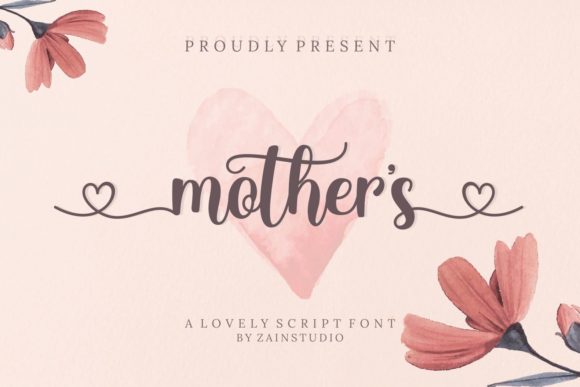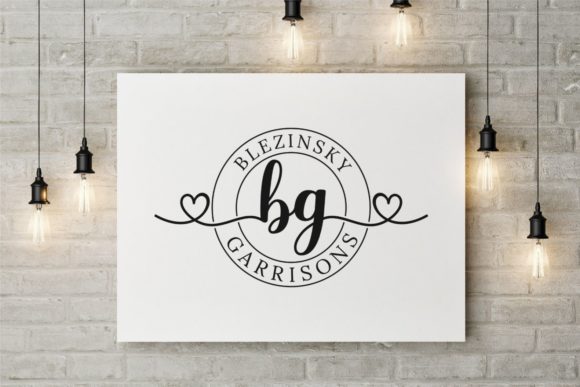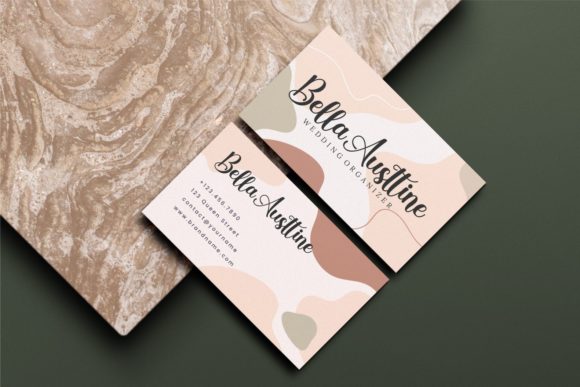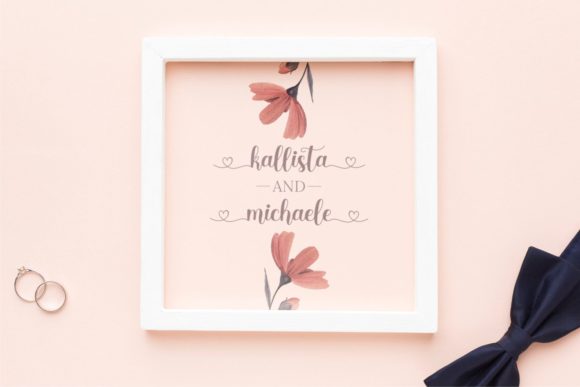
Mother’s Font
About the Mother’s Font
Elevate your designs with Mother’s Font, a font that combines sophistication with readability. Mother’s is a gorgeous handwritten font. It features special heart-themed characters that will add a romantic touch to all your upcoming projects!
This font is PUA encoded which means you can access all of the cute glyphs and swashes with ease! It also features a wealth of special features including alternate glyphs and ligatures.
Mother’s Font’s expressive, romantic style is ideal for projects requiring a touch of heartfelt charm. It works exceptionally well in wedding invitations, greeting cards, short quotes on social media, or logos for businesses focused on love, family, or artisanal products. Avoid using it for large blocks of text or UI elements; its decorative nature isn’t optimized for readability in body copy.
Pairing Mother’s Font with a clean sans-serif like Lato for body text provides a strong contrast, balancing the hand-drawn warmth with modern clarity. For a more elegant feel, consider pairing it with a classic serif font such as Garamond or a delicate script like Allura. These pairings maintain visual interest while ensuring readability.
The overall personality of Mother’s Font is undeniably romantic and friendly, conveying a sense of warmth and intimacy. Its handcrafted quality adds a personal touch, making it perfect for projects that prioritize emotion and connection.